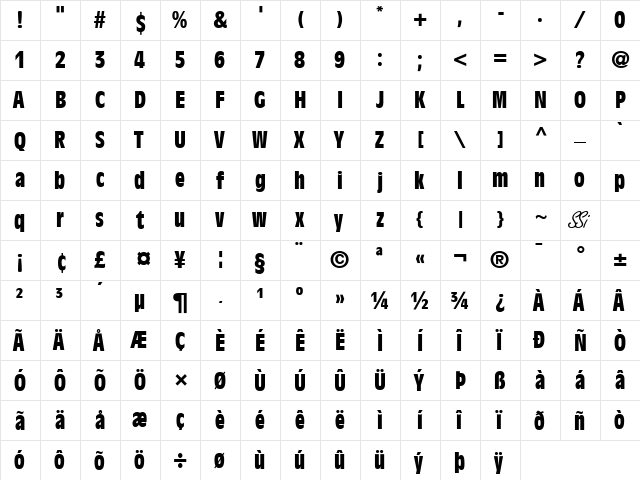
Decade Black Condensed SSi Black Condensed
Design Context for Decade Black Condensed SSi Typeface
Decade Black Condensed SSi offers clean, dependable letterforms without strong stylistic allegiance, making it a practical choice for designers who need flexibility. The condensed width makes it efficient for tight spaces without sacrificing legibility.